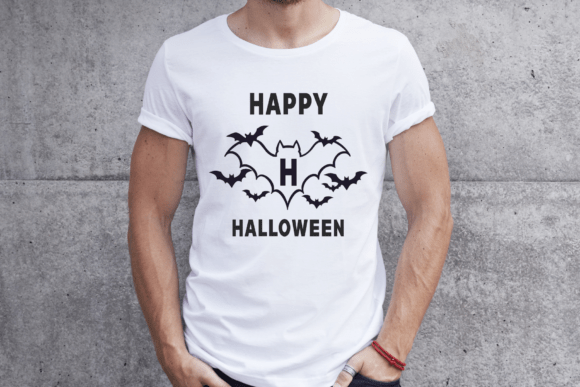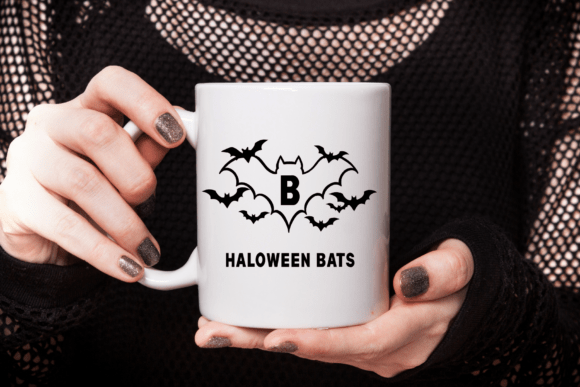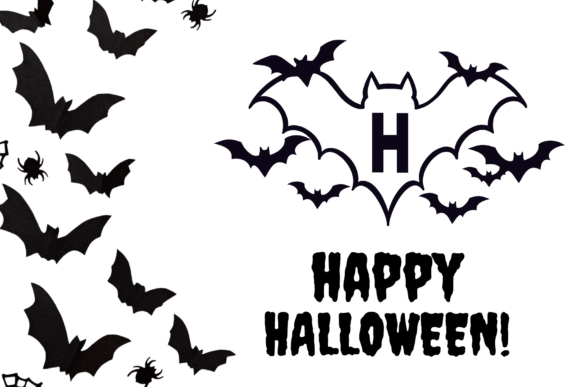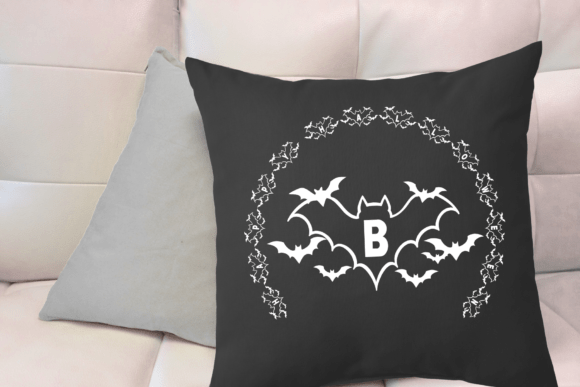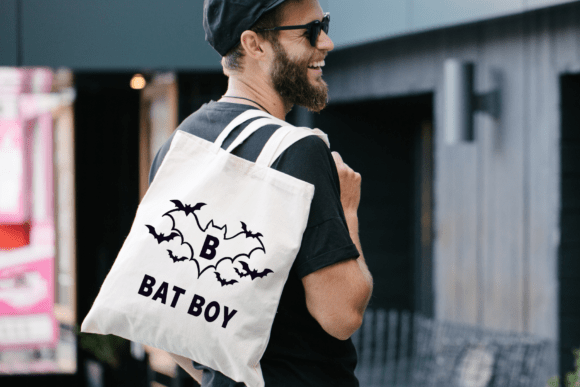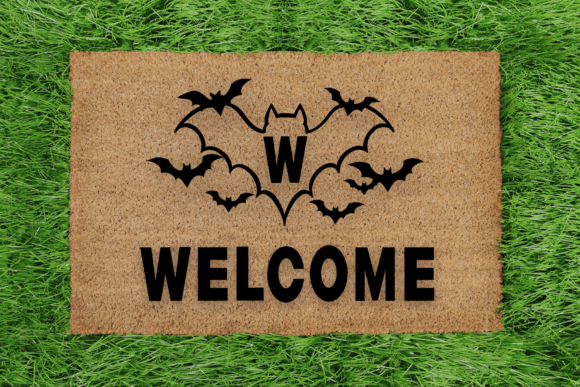
Get Ready to Cast a Spell with the Halloween Bats Font
As the sun sets on another summer evening, the excitement for Halloween starts to build up. You’re probably already brainstorming ideas for the perfect costume, decorations, and invitations. But have you ever stopped to think about the typography that can make your horror project truly stand out?
That’s where the Halloween Bats Font comes in – a delightful and playful font that combines cute bat silhouettes with bold letters. This unique design makes it perfect for any Halloween project, from spooky posters and logos to mugs and T-shirts. Whether you’re a seasoned designer or just looking for a fun way to express your creativity, the Halloween Bats Font is an invaluable resource that can help you bring your spooky visions to life.
Halloween Bats Font Key Features
- Unique Characteristics: The Halloween Bats Font features a spooky and eerie design, with intricate details and shapes inspired by bats and other Halloween elements.
Halloween Bats Font Review
When I first laid eyes on the Halloween Bats Font, I was immediately drawn to its quirky charm ✨. The font’s use of bats, spiders, and other Halloween-inspired elements creates a spooky yet playful atmosphere. The design team has done an excellent job of balancing whimsy with legibility, making it suitable for a wide range of applications.
The font’s versatility is one of its strongest assets ✨. It can be used for titles, headings, and even body text, depending on the desired level of spookiness. The font’s range of weights and styles allows designers to customize the look to suit their needs.
- ⚠️ Limited character set: The font’s character set is somewhat limited, which may make it difficult to use for longer blocks of text.
- ⚠️ Font size limitations: While the font looks great at larger sizes, it may appear distorted or unclear at smaller sizes.
Overall, I would give the Halloween Bats Font 4 out of 5 stars. While it has some limitations, its unique design and versatility make it a great addition to any designer’s toolkit. If you’re looking for a font that’s perfect for Halloween-themed projects or just want to add a touch of whimsy to your designs, the Halloween Bats Font is definitely worth considering.
Tips for Getting the Most Out of the Halloween Bats Font
Use the Halloween Bats font in conjunction with Halloween-themed graphics and images to create a spooky atmosphere. Experiment with different font sizes and colors to add emphasis to your text. You can also use the font to create a title or heading for your project.
The Halloween Bats font is perfect for creating Halloween-themed invitations, party decorations, and social media graphics. It’s also great for creating spooky-themed blog posts, articles, and ebooks.
Alternatives to “Halloween Bats Font” for Designers
Courier New
Courier New is a monospaced font that can add a spooky feel to your designs. It’s perfect for creating a retro or vintage Halloween aesthetic. Use it for titles, headings, and body text to create a cohesive look.
Comparison to Halloween Bats Font: While Courier New has a more traditional and straightforward design, it can still evoke a sense of eeriness and mystery, making it a suitable alternative for Halloween-themed designs.